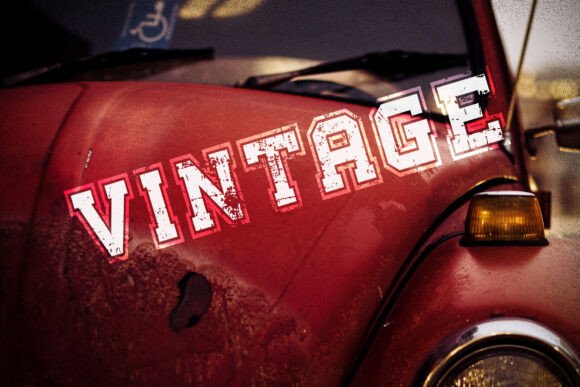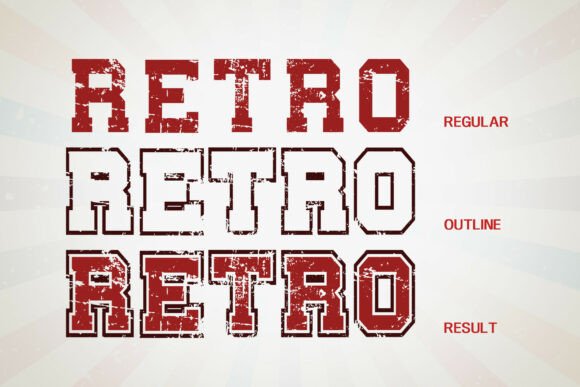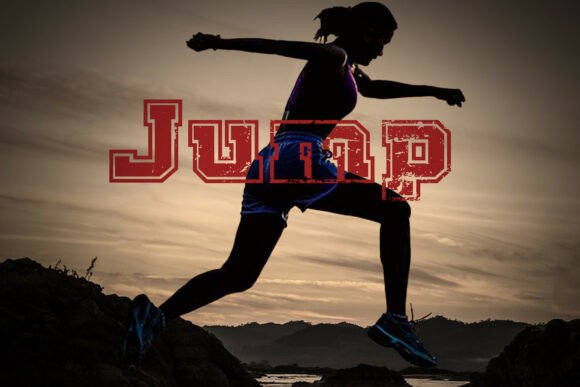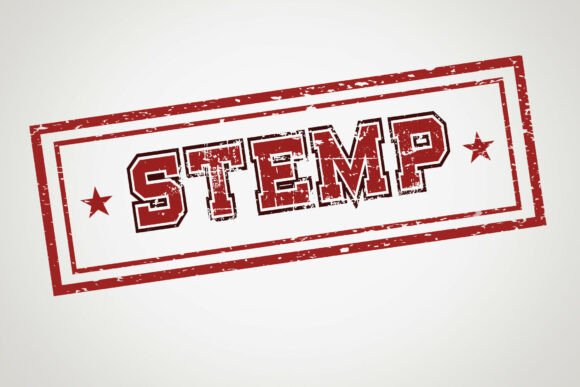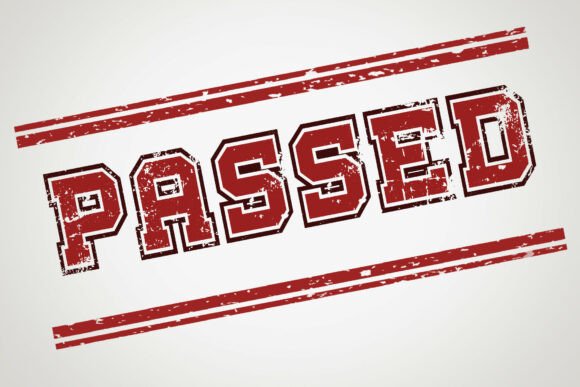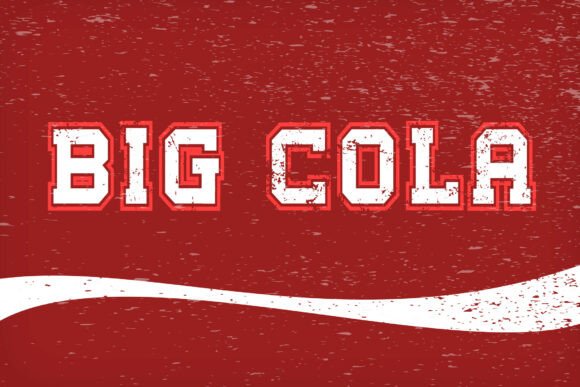
Bring a Classic, Varsity-Inspired Energy to Your Designs with College Retro Font
Are you looking for a font that captures the timeless, classic aesthetic of a college campus? Look no further than the College Retro font, a robust slab serif typeface that embodies the spirit of varsity-inspired design. With its distressed, weathered textures and bold letterforms, this font is perfect for designers and crafters who want to add a touch of nostalgia and athletic pride to their projects.
The Ultimate Choice for Sports Team Apparel and University-Themed Designs
College Retro font is specifically designed to evoke the classic, vintage feel of college campuses and sports teams. Its distressed textures and bold letterforms give it an authentic, vintage print feel that’s perfect for a wide range of design projects, from sports team apparel to university-themed event posters and nostalgic branding projects. Whether you’re designing t-shirts, varsity jackets, or social media graphics for a game day, this font is sure to bring a sense of history and athletic pride to your designs.
Key Features of College Retro Font
- Distressed, weathered textures: The College Retro font features distressed, weathered textures within its bold letterforms, giving it an authentic vintage print feel.
- Robust slab serif typeface: The font’s robust slab serif design makes it perfect for headlines, titles, and other display text.
- Outline version: As a bonus, the font includes an outline version, offering even more versatility for layered designs and impactful headers.
Pairing Options for College Retro Font
The College Retro font pairs exceptionally well with a variety of other fonts, making it easy to create visually appealing and cohesive designs. Here are a few pairing options to consider:
- Clean sans-serifs: Pair the College Retro font with a clean sans-serif font for a modern twist on the classic collegiate look.
- Script fonts: Combine the College Retro font with a script font for a traditional, nostalgic look that’s perfect for special events and promotions.
Design Ideas for College Retro Font
The College Retro font is versatile and can be used for a wide range of design projects, including:
- Sports team apparel: Use the College Retro font to create custom t-shirts, hoodies, and other apparel for sports teams.
- University-themed event posters: Create eye-catching posters for university events, such as concerts, festivals, and sporting events.
- Nostalgic branding projects: Use the College Retro font to create branding materials that evoke a sense of nostalgia and classic Americana.
- Social media graphics: Create engaging social media graphics for game days, special events, and promotions.
Why Choose College Retro Font?
There are many reasons why designers and crafters should choose the College Retro font for their projects. Here are a few:
- Unique, authentic look: The College Retro font offers a unique, authentic look that’s perfect for designers who want to stand out from the crowd.
- Versatility: The font is versatile and can be used for a wide range of design projects, from apparel to posters to branding materials.
In conclusion, the College Retro font is a robust slab serif typeface that perfectly captures the timeless, classic aesthetic of a college campus. With its distressed, weathered textures and bold letterforms, this font is perfect for designers and crafters who want to add a touch of nostalgia and athletic pride to their projects. Whether you’re designing sports team apparel, university-themed event posters, or nostalgic branding materials, the College Retro font is the ultimate choice.